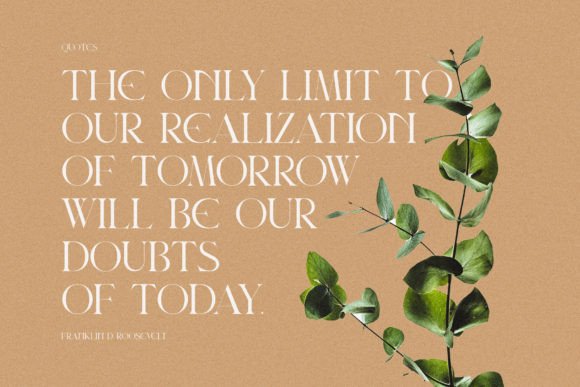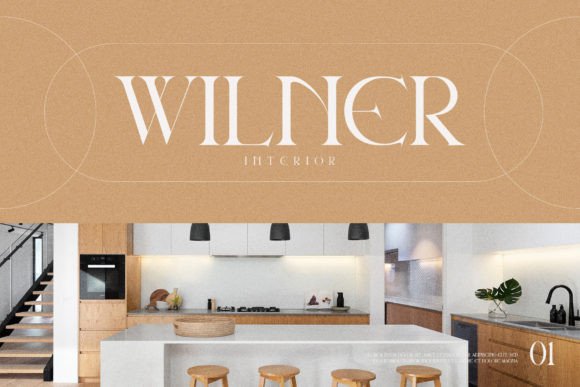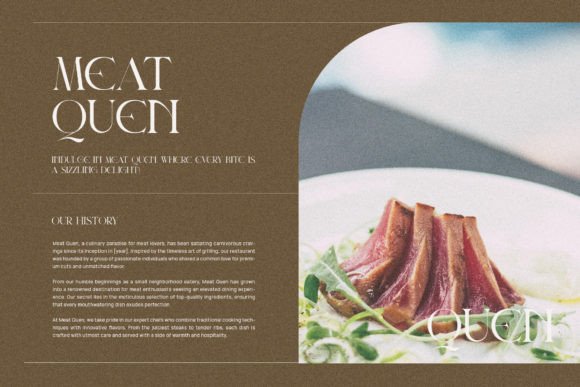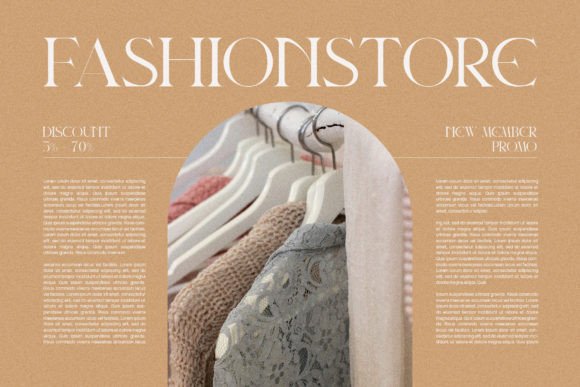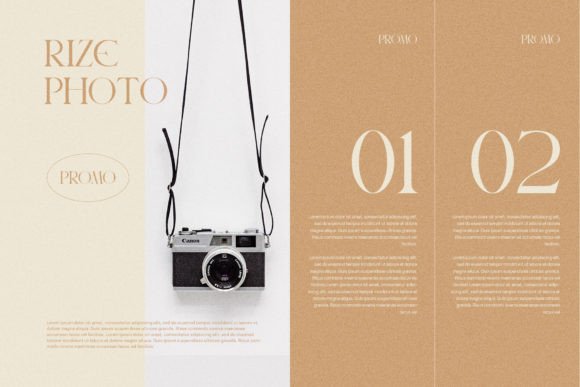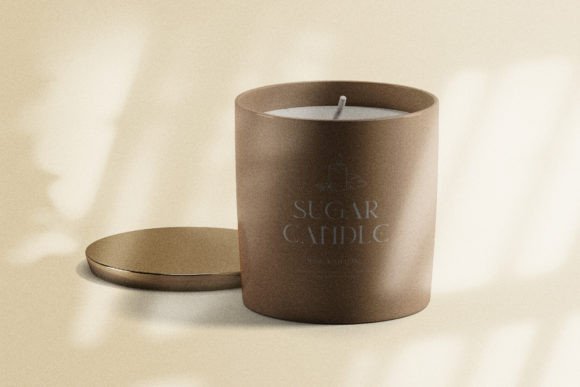
Introduction to Signer Font
As a designer, you’ve probably found yourself staring at a blank canvas, waiting for inspiration to strike. The cursor blinks impatiently, and your mind starts racing with possibilities. This is where the perfect font can make all the difference. For those seeking a timeless and sophisticated look, the Signer Font is an excellent choice. Its elegant serif typeface combines with a classy and modern style, making it a valuable asset for any creative project.
Whether you’re working on a branding project, creating a logo, or designing a wedding invitation, the Signer Font is a high-quality design resource that’s sure to elevate your work. Its versatility and readability make it an ideal choice for various applications, from social media posts to product packaging and labels. With its free download available, you can experiment with this beautiful font without any hassle.
Key Features of Signer Font
- High-quality, professional font designed specifically for creative projects, available for free download.
- Transparent background, making it easy to place over any image or design without a distracting background.
- Includes a wide range of glyphs, including Latin, Cyrillic, and Greek alphabets, as well as punctuation and special characters.
- Designed to be highly legible at various resolutions, including 72 dpi and 300 dpi, making it suitable for both digital and print projects.
- Supports various font sizes, from small text to large headings, allowing for flexibility in design applications.
- Perfect for designers, artists, and writers looking for a high-quality, unique font to add a touch of professionalism to their creative projects.
Honest Review: Signer Font
I recently stumbled upon the Signer Font and I have to say, I’m quite impressed with its features. The font is a high-quality design resource that can elevate any creative project. One of the things that stood out to me was its sleek and modern aesthetic, making it perfect for modern designs.
Here are some of the things that work well with the Signer Font:
- ✨ Wide range of styles and weights, making it versatile for various design applications.
- ✨ High-quality design that looks great on various devices and screen sizes.
- ✨ Comes with a transparent background, making it easy to use on any design project.
- ⚠️ The font may not be suitable for older systems or browsers that don’t support modern fonts.
- ⚠️ Some designers may find the font too modern or trendy, which may not appeal to all design styles.
Overall, I think the Signer Font is a great addition to any designer’s toolkit. Its high-quality design and versatility make it a valuable resource for any creative project. With its free download option, it’s definitely worth checking out.
Tips for Getting the Most Out of Signer Font
Some tips for getting the most out of Signer Font include using it in combination with other design resources, such as graphics and images, and experimenting with different font sizes and styles to create a unique look.
Signer Font is commonly used in a variety of creative projects, including logos, branding materials, and marketing materials. It’s also a great choice for free downloads and design resources, thanks to its high quality and versatility.
Alternatives to Signer Font
Great Vibes Font is a high-quality, free download font perfect for creative projects that require a unique and elegant touch. It features a transparent background, making it ideal for designs where a clear text is necessary. Great Vibes Font is great for use in headings and titles, adding a touch of sophistication to any design. Compared to Signer Font, Great Vibes Font has a more refined and luxurious feel, making it suitable for high-end designs and projects.
Carolyna Pro Font is a versatile and creative font that offers a wide range of styles and weights, making it a great resource for designers. It features a transparent background and is available for free download, making it an excellent choice for designers on a budget. Carolyna Pro Font is ideal for use in creative projects that require a unique and modern touch. Compared to Signer Font, Carolyna Pro Font has a more modern and edgy feel, making it suitable for trendy designs and projects.